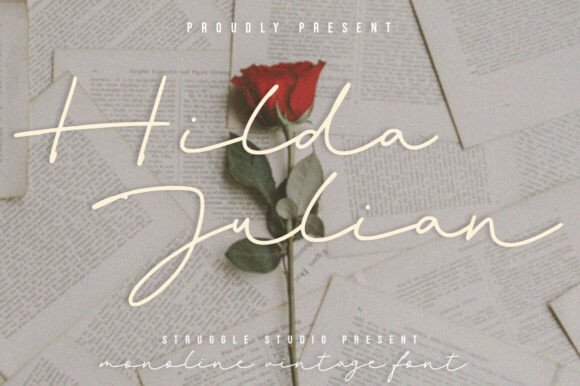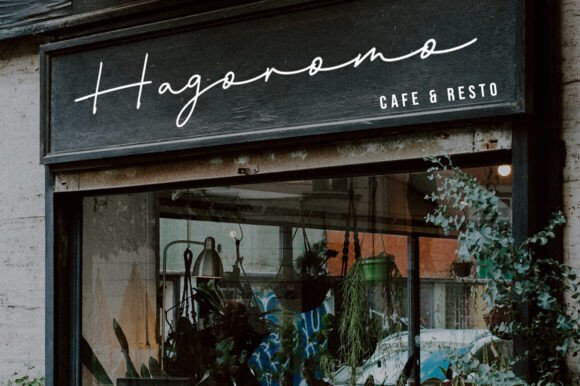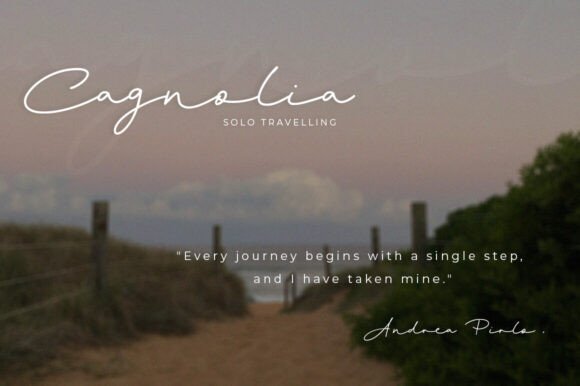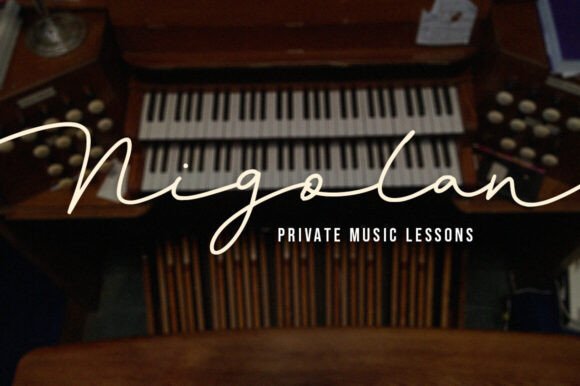
Hilda Julian Font: Elegant Monoline Script for Logo Design & Branding
About the Hilda Julian Font
Let us introduce you to Hilda Julian Font, where timeless design meets modern craftsmanship. Hilda Julian is a vintage monoline script font designed to give an elegant, personal, and classic feel. With a signature-like handwriting appearance, this font is perfect for personal branding, boutique logo designs, wedding invitations, photography watermarks, and designs that require a feminine and exclusive touch.
Hilda Julian’s elegant, flowing forms excel in applications requiring a touch of refined femininity. It is ideal for short headlines, logos, and invitations where its delicate monoline weight adds a sense of sophistication. However, its low x-height and consistent stroke weight make it unsuitable for extended body text or user interfaces where readability is paramount.
Pairing Hilda Julian with a clean sans-serif like Lato or a geometric sans-serif like Montserrat would create a strong visual contrast, balancing its script character with modern clarity. For a more traditional feel, consider pairing it with a classic serif like Garamond or a slightly more playful serif like Playfair Display.
The font’s overall personality is sophisticated and feminine, conveying a sense of personal charm and classic elegance. Brands focused on luxury goods, beauty products, or wedding services would find Hilda Julian particularly effective.
Hilda Julian Font Usage Examples
Hilda Julian Font Example